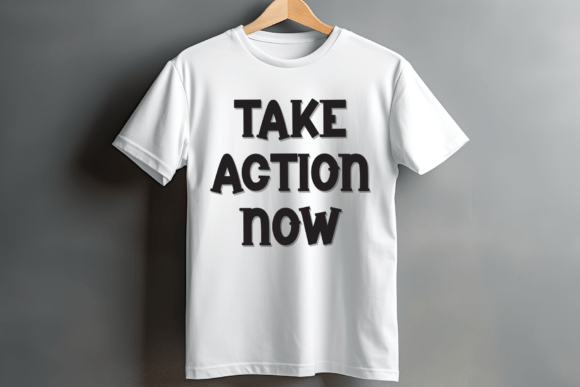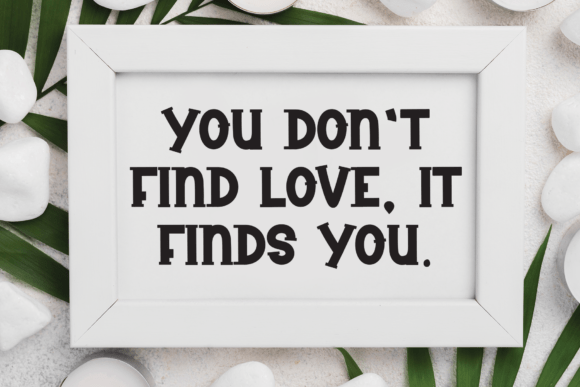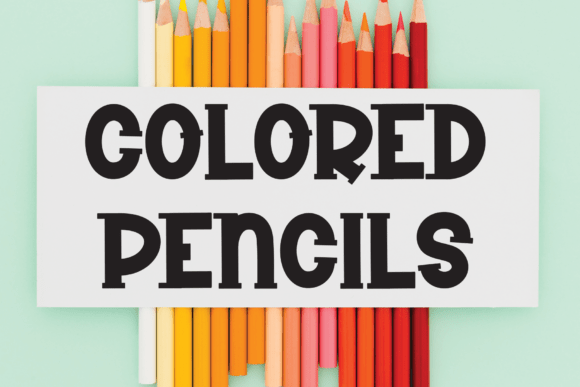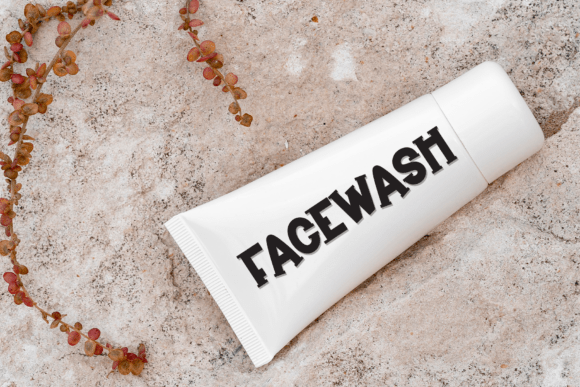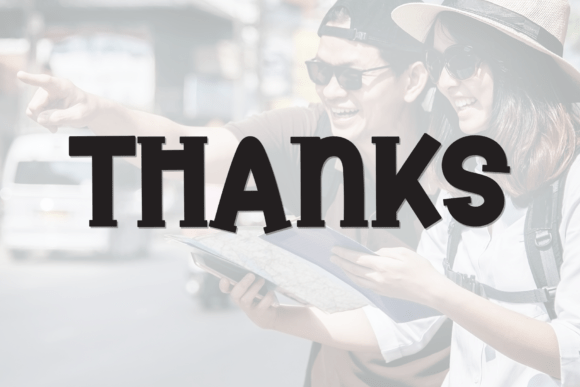
Get Ready to Embark on a Creative Journey
Have you ever stared at a map, dreaming of far-off destinations and untold adventures? That’s exactly the kind of creative spark that the Hello Holiday Font is designed to ignite. This robust and energetic typeface is built for storytellers and wanderers alike, capturing the spirit of travel and exploration in every bold stroke.
With its confident, “stamped” texture and playful rhythm, the Hello Holiday Font is perfect for designers looking to create maximum impact and approachable charm. Whether you’re crafting a travel blog, designing casual lifestyle branding, or creating eye-catching event banners, this typeface is sure to be a valuable addition to your creative toolkit.
By incorporating the Hello Holiday Font into your next project, you’ll be able to infuse your work with a sense of adventure and wanderlust that’s sure to captivate your audience. So why not take the first step on this creative journey and discover the limitless possibilities of the Hello Holiday Font?
Hello Holiday Font Key Features
- Font Family: Hello Holiday is a unique, hand-drawn font family designed for festive and holiday-themed designs.
- Size: The font family comes in multiple weights, ranging from Thin to Bold, to cater to diverse design requirements.
- Resolution: Optimized for high-resolution displays, Hello Holiday Font is suitable for use in digital and print media, including web design, social media, and advertising.
- Unique Characteristics: The font features intricate, hand-drawn illustrations and ornaments, adding a touch of whimsy and festivity to designs.
- Character Set: The font family includes a comprehensive character set, including uppercase and lowercase letters, numbers, and punctuation marks, as well as a range of festive symbols and icons.
Hello Holiday Font Review
I recently had the chance to work with the Hello Holiday Font, and I must say it’s a unique addition to any design project. Here are my thoughts on what works well and what doesn’t:
- Quirky charm: The Hello Holiday Font has a distinct, playful feel that’s perfect for adding a touch of whimsy to your designs.
- Handwritten feel: The font’s handwritten style gives it a personal, emotive quality that’s hard to replicate with more formal fonts.
- Limited character set: The Hello Holiday Font has a relatively small character set, which can make it less versatile for longer texts.
- Distortion at large sizes: I noticed that the font can become distorted when used at very large sizes, which can be a concern for title or heading text.
Overall, I think the Hello Holiday Font is a great choice for designers looking to add a bit of personality to their work. While it has some limitations, its unique charm and cross-platform compatibility make it a solid addition to any design toolkit.
Getting the Most Out of the Hello Holiday Font
To get the most out of the Hello Holiday Font, try using it in conjunction with bright, festive colors and fun graphics. This font is perfect for creating eye-catching holiday designs, such as party invitations, gift tags, and social media graphics.
The Hello Holiday Font is commonly used for:
- Holiday party invitations and decorations
- Gift tags and gift wrapping
- Social media graphics and ads
- Seasonal email newsletters and marketing materials